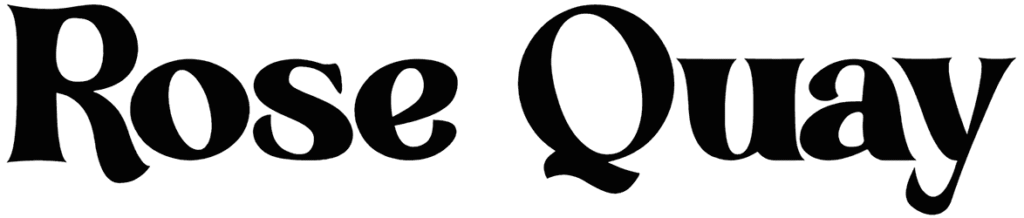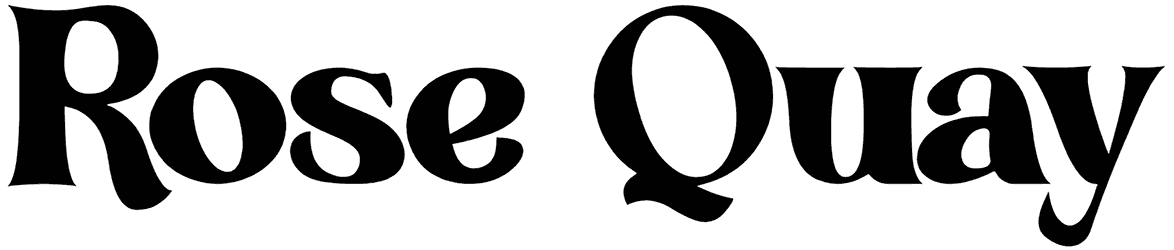
Rose Quay Font
Whether designing a poster for a music festival or creating a logo for a nostalgic brand, Rose Quay can add a sense of fun to your project. This retro font allows you to exploit a cultural excitement that never fades and can always look creative and original. So to add vintage charm to your projects, download this font and combine its playful spirit with your creative ideas.